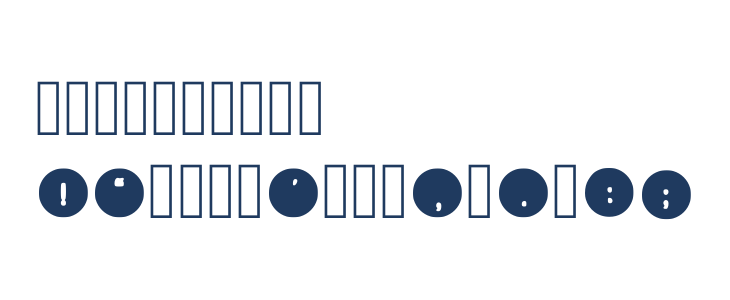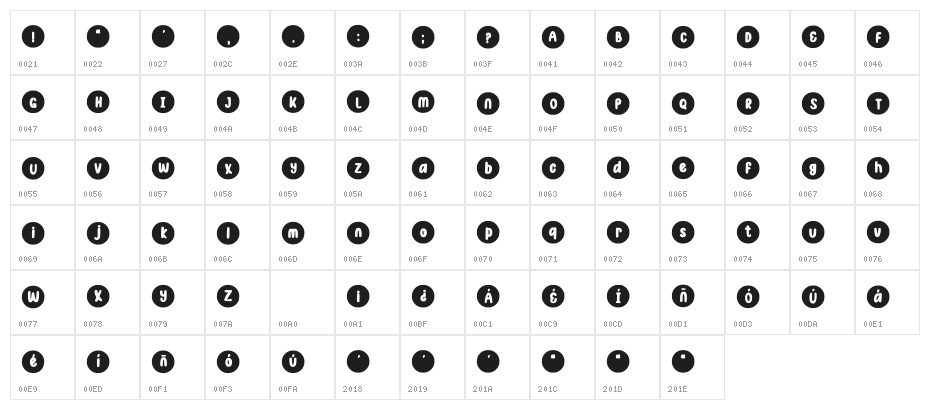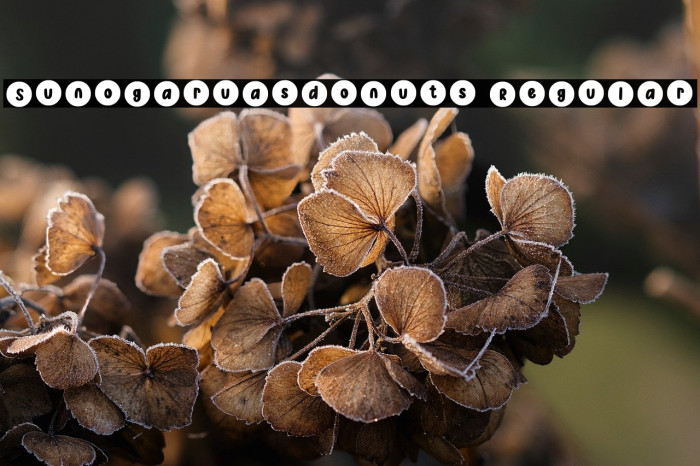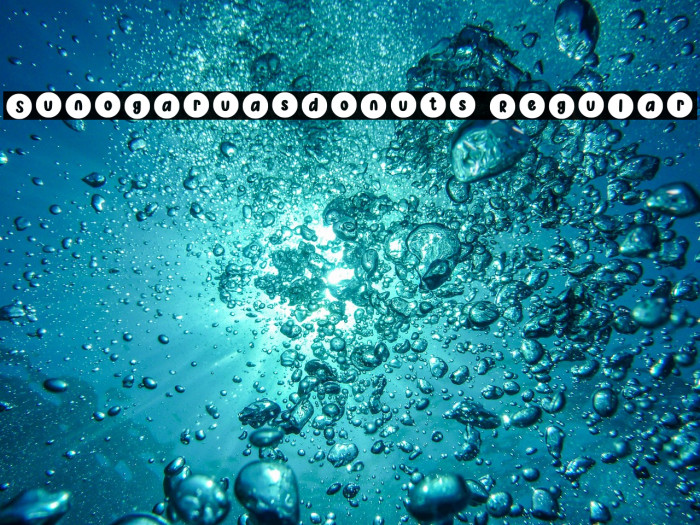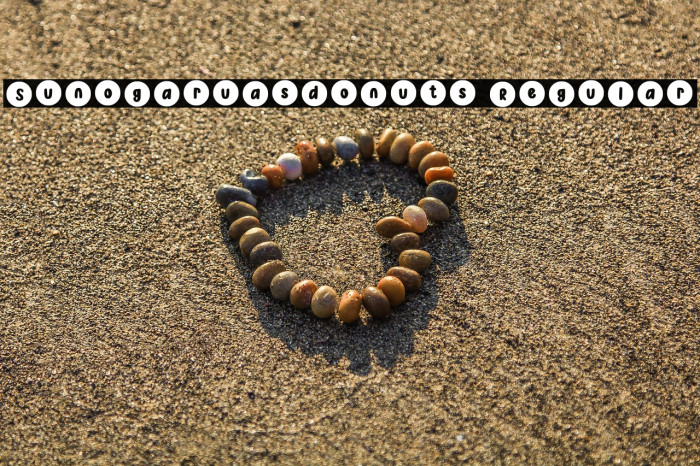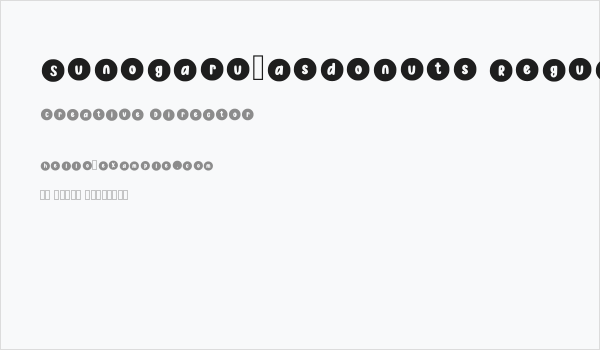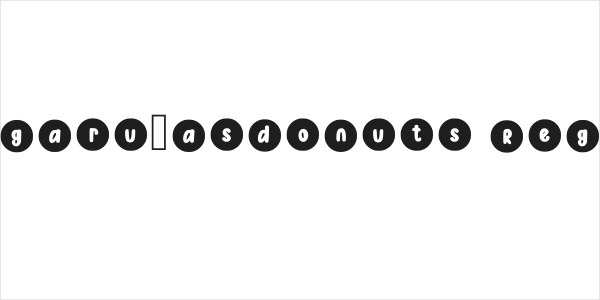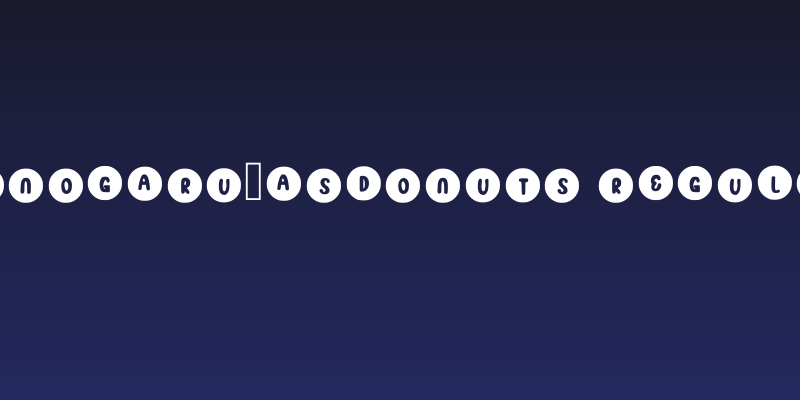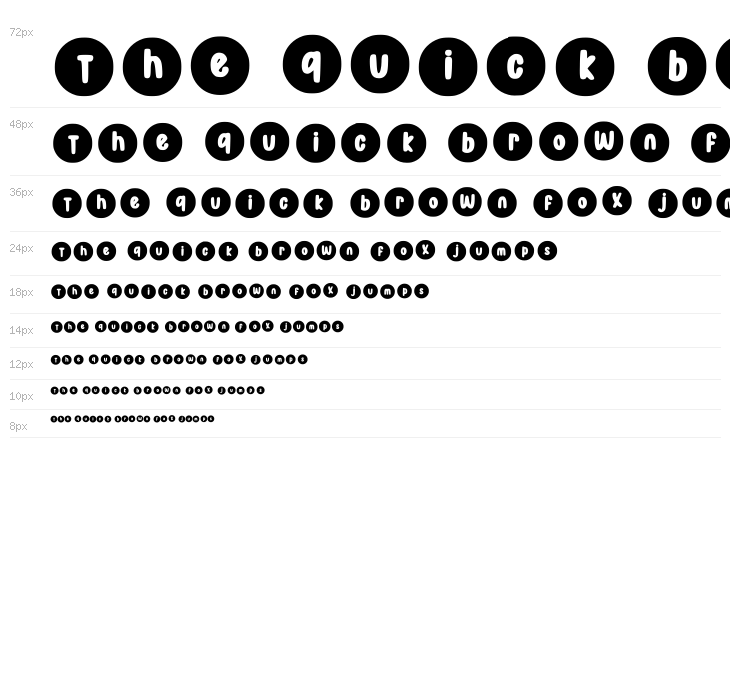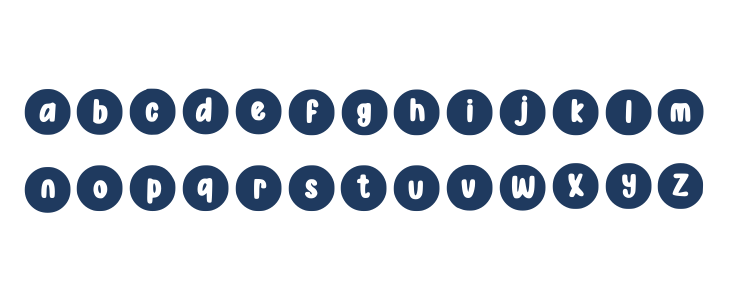
Sunogaru_asdonuts Regular Font
Sunogaru_asdonuts Regular Description
This playful and bold font features characters enclosed within circular shapes, creating a unique and eye-catching appearance. The letters are evenly spaced within the circles, providing a consistent and uniform look. The font is characterized by its thick, rounded strokes and high contrast between the solid black circles and the white letters inside. This design gives it a modern and fun vibe, making it suitable for creative and informal projects. The font includes both uppercase and lowercase letters, numerals, and a selection of special characters, all maintaining the same circular theme.